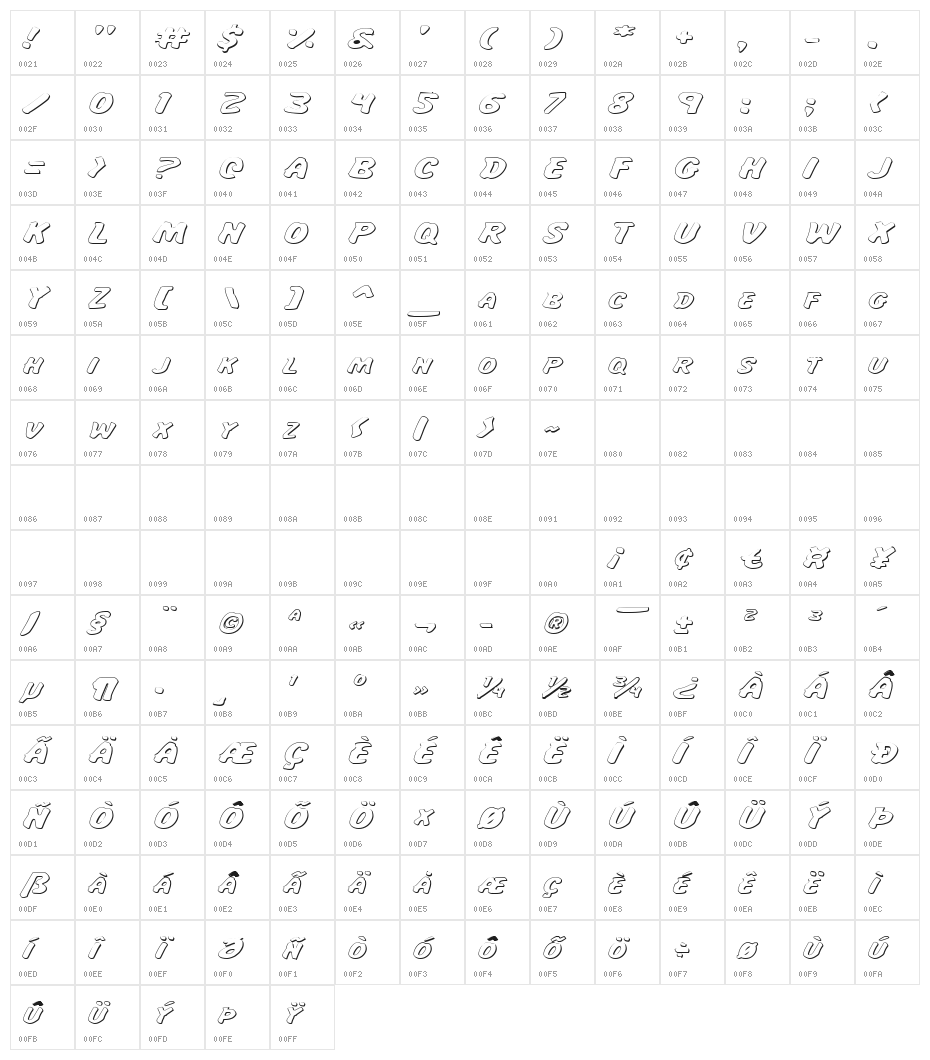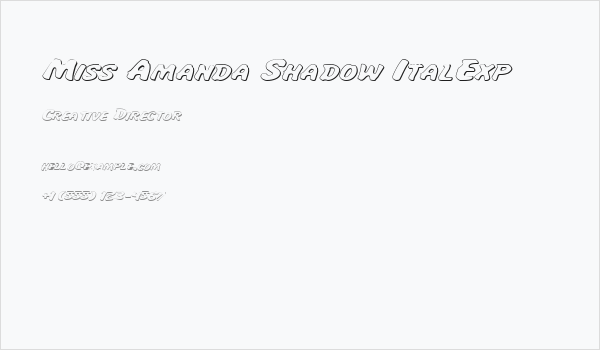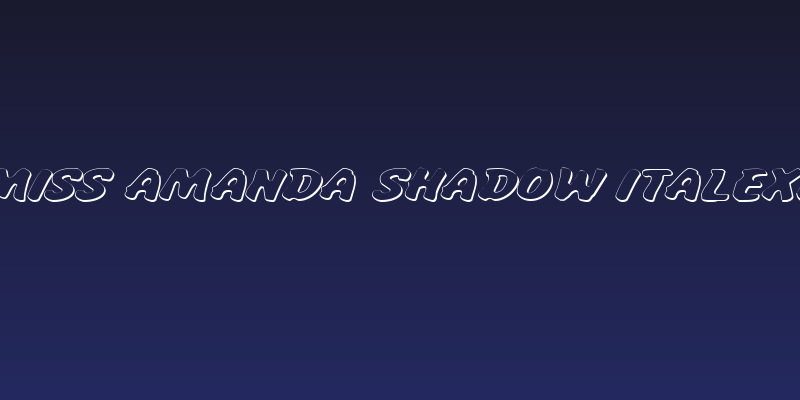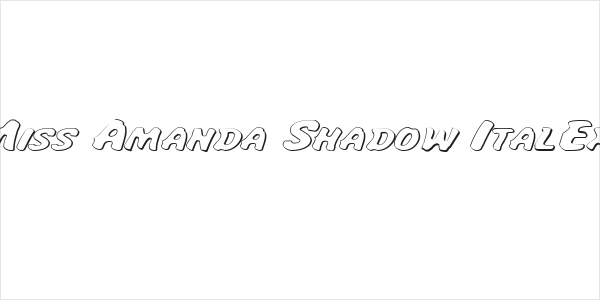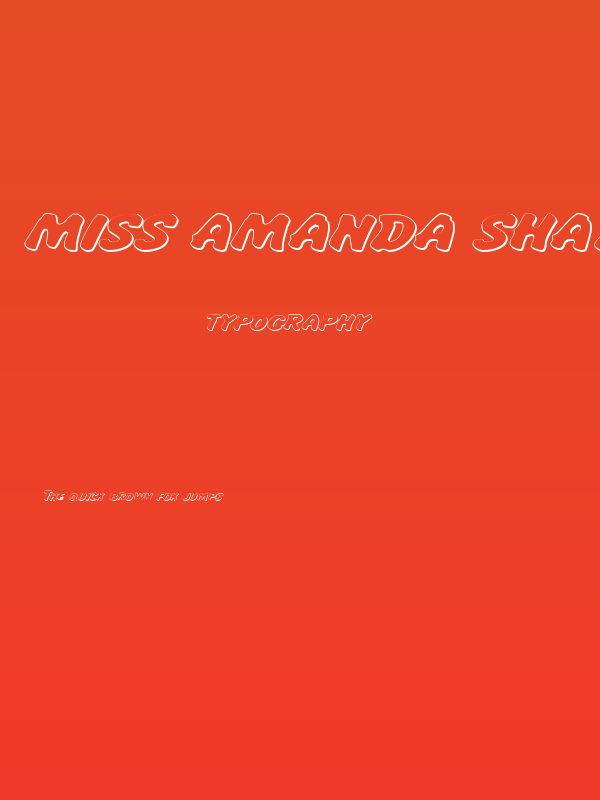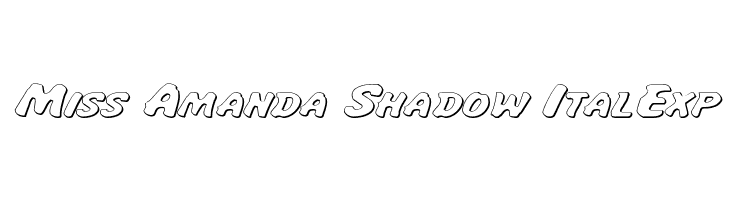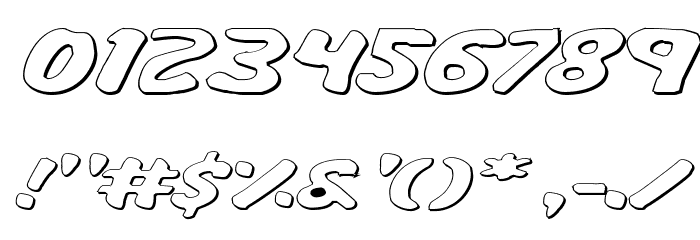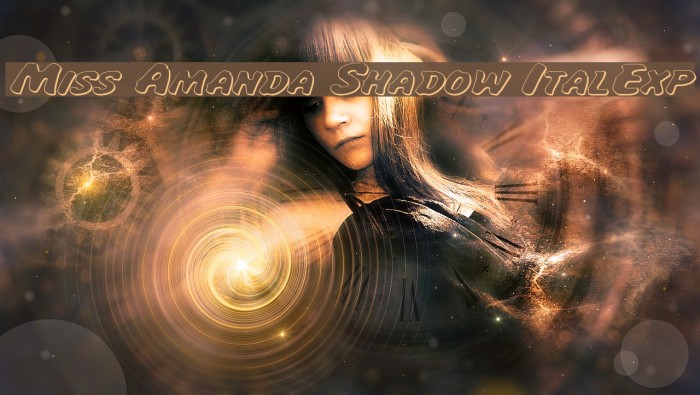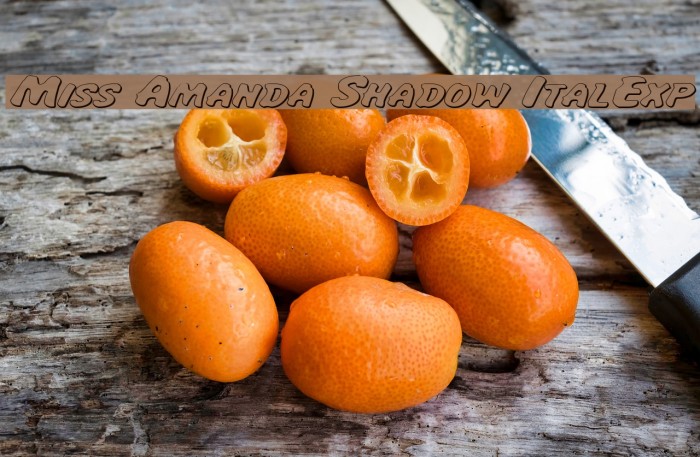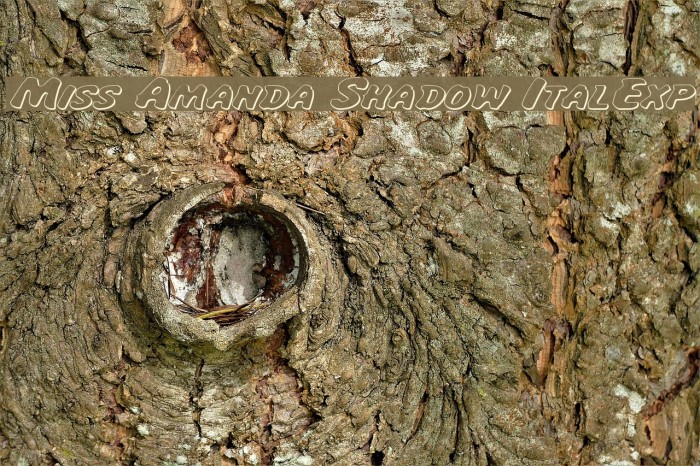
Miss Amanda Shadow ItalExp Font
Miss Amanda Shadow ItalExp Description
This playful and bold font features a shadow effect that gives it a three-dimensional appearance. The characters are rounded and slightly italicized, adding a dynamic and energetic feel. The uppercase and lowercase letters maintain a consistent style, with smooth curves and a uniform thickness. The numbers and special characters are designed to match the overall aesthetic, making this font versatile for various uses. Its unique shadowing and bold presence make it stand out, ideal for eye-catching designs.
| Overall Style | Playful, Energetic |
| Proposed Projects | Ideal for children's book covers, playful branding, posters, and creative social media graphics. |